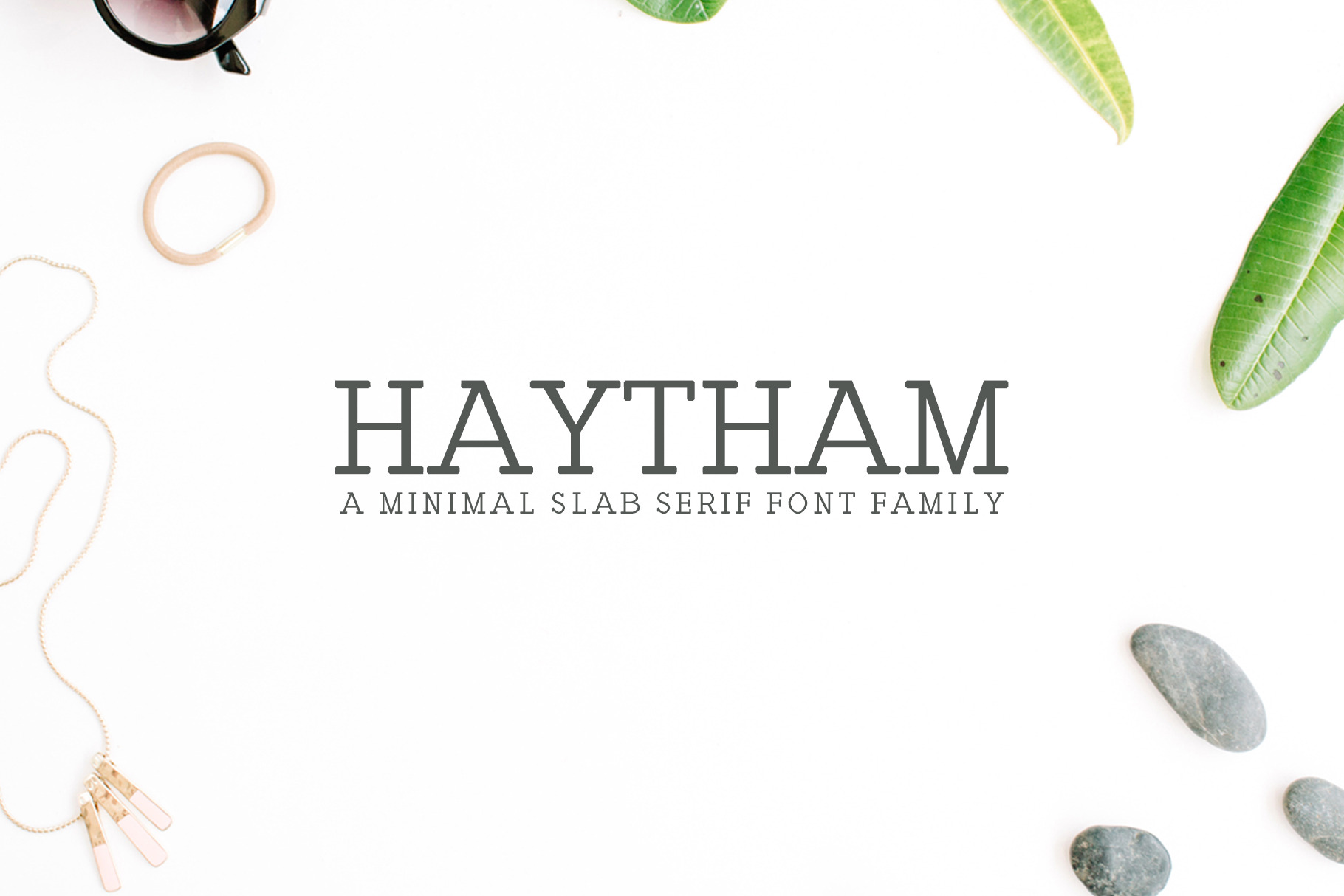
Haytham Slab Serif Fonts Packs
Haytham Slab Serif Font is a geometric fun slab font family pack. It has vibrant and strong in all of its eight weights. It is excellent for headlines, logo, branding, advertising and packaging, editorial and publishing, and creative industries, poster and billboards, small text and just about everything in between.
- Regular, Light, Bold, Black and Italics Weight
Haytham Font Features:
- Uppercase Multilingual Letters
- Lowercase Multilingual Letters
- Non English Characters ( Latin Supplement + Latin Extended A)